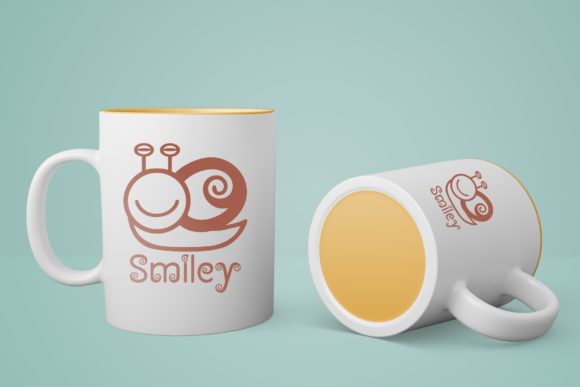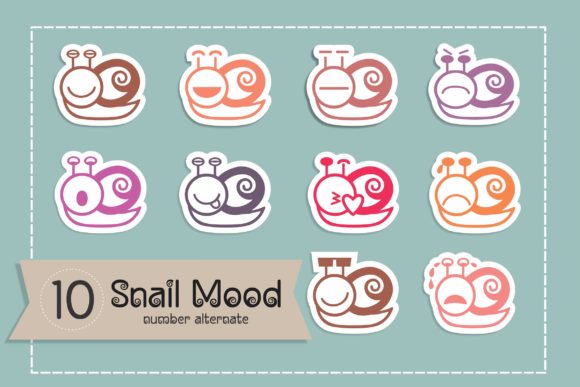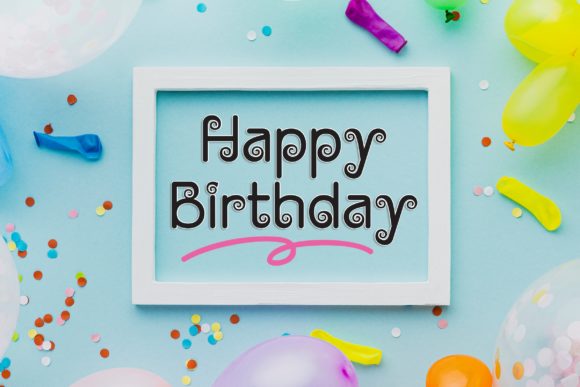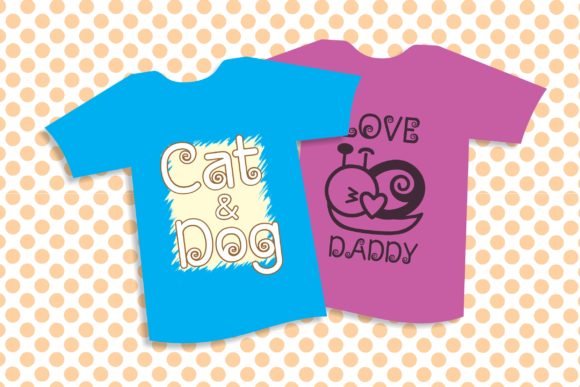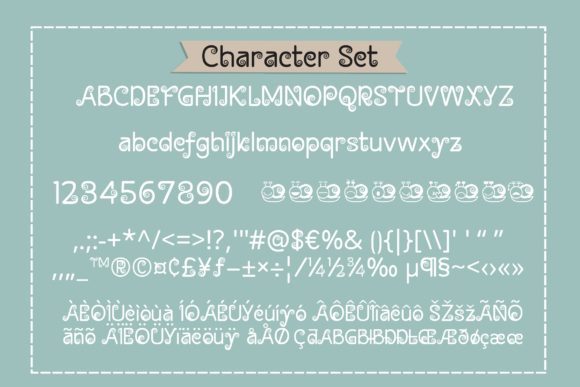
Introduction to Snail Mood Font
Have you ever been working on a creative project and suddenly, you just can’t seem to find the right touch? Maybe it’s the color palette, or perhaps it’s the typography that’s missing that extra something special. For designers, this moment of inspiration is often the difference between a good design and a great one. And that’s exactly where the Snail Mood Font comes in – a free download that’s sure to add a dash of joy to your designs.
With its quirky and cute design, the Snail Mood Font is a high-quality resource that’s perfect for any creative project. Whether you’re working on a graphic design, a logo, or even a simple social media post, this font is sure to make your design stand out. Plus, its transparent background makes it easy to use on any background, giving you the flexibility to experiment with different looks and feels.
Key Features of Snail Mood Font
- Unique, hand-drawn design with a playful, whimsical feel, perfect for creative projects.
- Features a range of snail-inspired characters, including uppercase and lowercase letters, numbers, and punctuation.
- Perfect for adding a touch of personality and fun to logos, branding materials, and other creative projects.
Honest Review: Snail Mood Font
As a designer, I’m always on the lookout for high-quality design resources to enhance my creative projects. Recently, I came across the Snail Mood Font, and I’m excited to share my honest review with you.
- The Snail Mood Font offers a unique and quirky aesthetic that can add a touch of whimsy to any design.
- The transparent background feature allows for seamless integration with any design element.
- The Snail Mood Font may not be suitable for formal or professional designs, as it can come across as too playful.
- The font family is relatively small, with only a few styles available.
Overall, the Snail Mood Font is a great addition to any designer’s toolkit. Its high-quality design and transparent background feature make it an excellent choice for creative projects. While it may have some limitations, I believe it’s worth checking out for designers looking for a unique and quirky font.
Tips for Getting the Most Out of Snail Mood Font
To get the most out of Snail Mood Font, consider using it with a transparent background to create a unique and eye-catching design. You can also experiment with different font sizes and styles to add depth and interest to your project.
Common Use Cases for Snail Mood Font
Snail Mood Font is ideal for use in a variety of creative projects, including digital art, graphic design, and even web design. Its high-quality design makes it a great choice for any project where you want to add a touch of whimsy and personality.
Q: Can I use the Snail Mood Font with a transparent background?
Yes, the Snail Mood Font features a transparent background, allowing for easy customization and blending with other design elements. This makes it an ideal choice for designers working on creative projects that require a high level of flexibility.